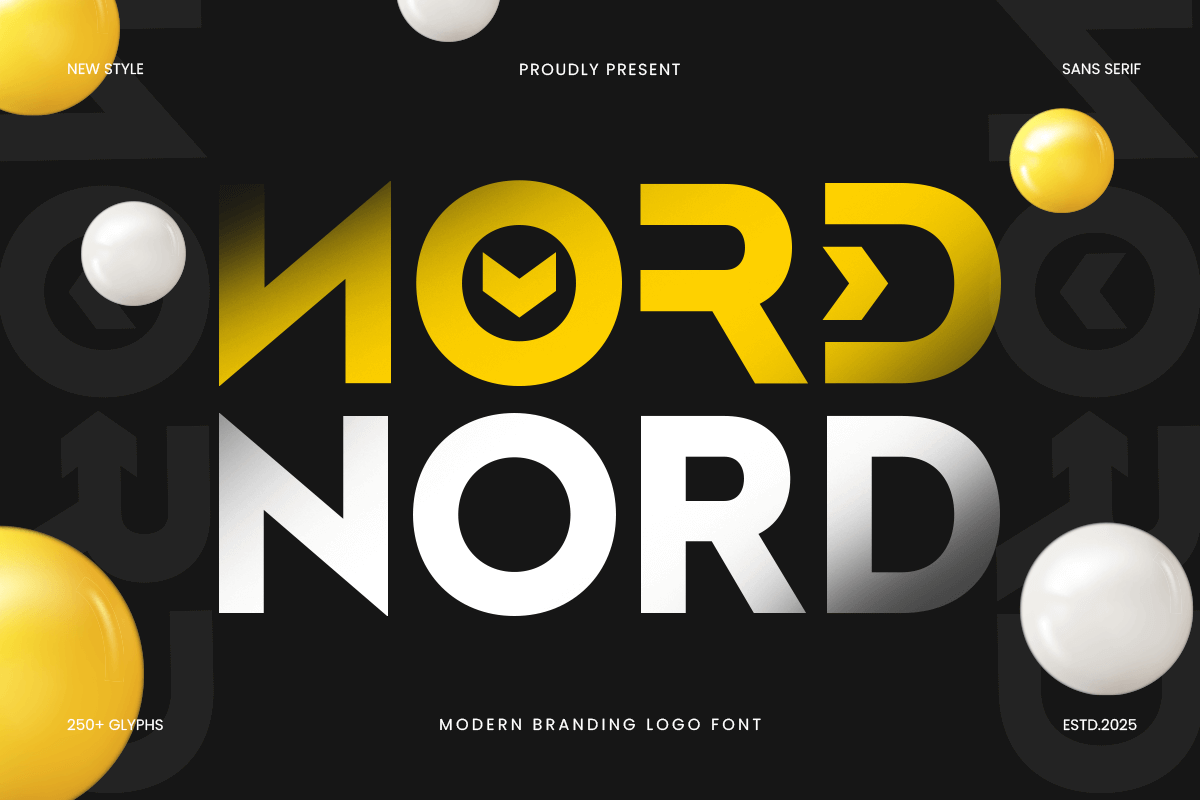
Nord
-Modern Branding Logo Font
Nord - Modern Branding Logo Font
NORD is a modern branding logo font designed to bring sophistication, clarity, and a contemporary edge to your design projects. Its sleek and balanced letterforms make it ideal for logos, corporate branding, and creative designs where a polished, modern aesthetic is essential.
Perfect for building brand identities, digital products, or print materials, NORD offers a professional look that stands out with subtle elegance. Its minimalist yet versatile style ensures it fits seamlessly into a wide range of modern design contexts.
NORD – Modern Branding Logo Font Features
• Sleek and modern letterforms ideal for branding and logos
• Ready with Regular and Bold Version for Perfect Results
• Clean, minimal, and professional design
• Versatile style suitable for digital and print projects
• OpenType features for flexible typographic control